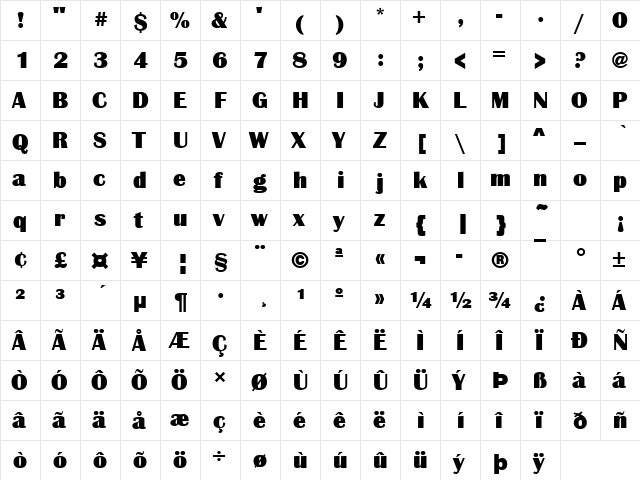
Britannic Becker Ultra Regular Font Preview
Britannic Becker Ultra Regular
Design Context for Britannic Becker Ultra Typeface
Britannic Becker Ultra is a composed and adaptable typeface that performs quietly and consistently across a wide range of design contexts.